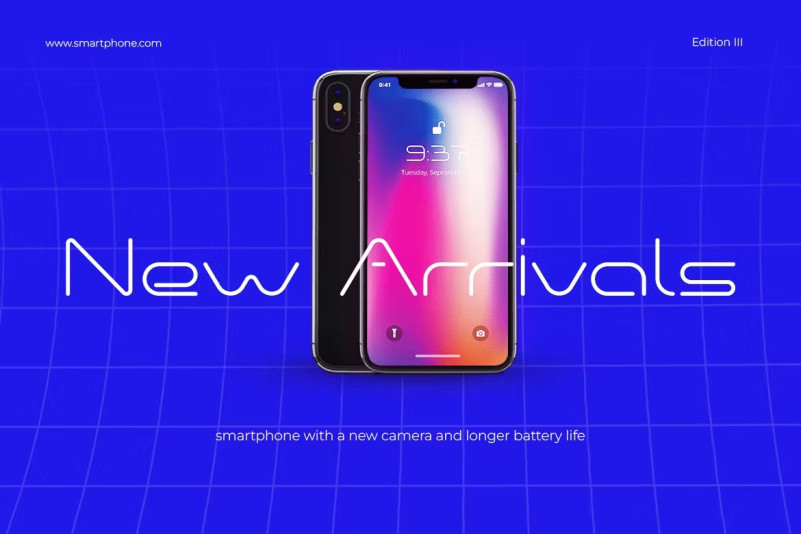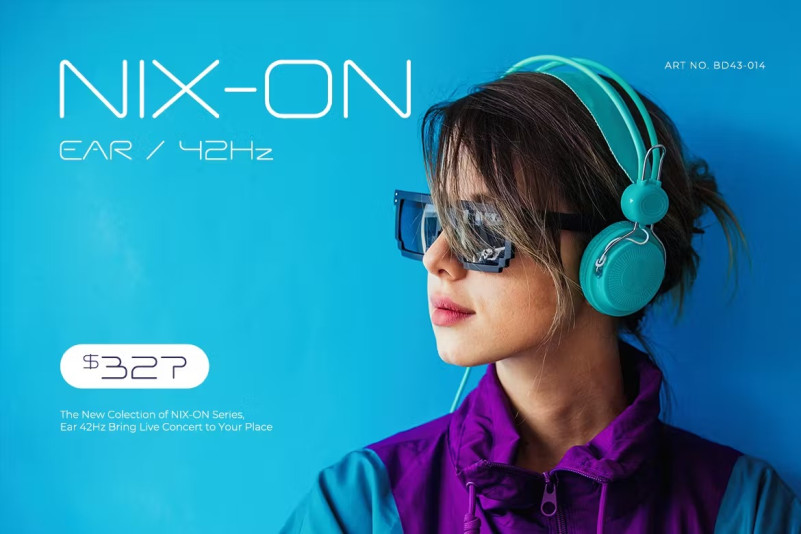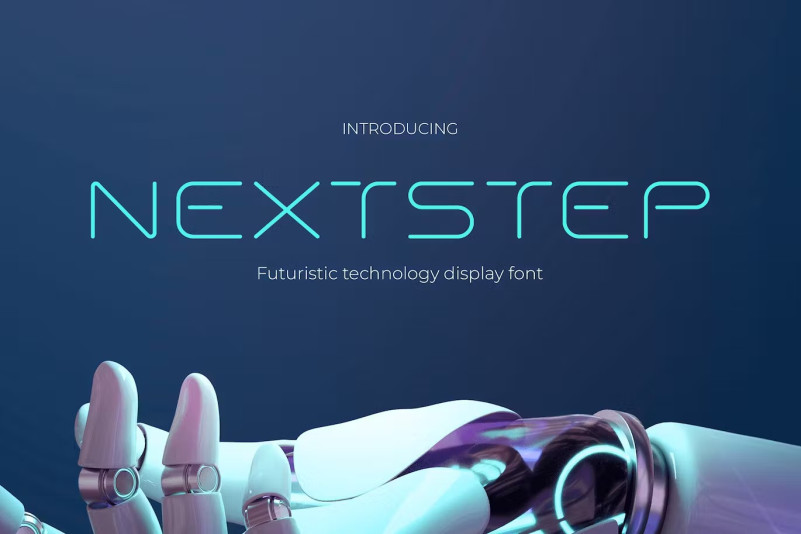
Nextstep Font
Nextstep Font, is the ideal font for those who want to transform their designs in the future. With its sleek and modern style, this techno-futuristic font is perfect for any project that conveys a sense of innovation, progress, and technology. Whether you’re creating a magazine cover, a poster for a tech event, or a website for a futuristic product, Nextstep will help you get your message across in the most effective way possible.
With its clean lines and bold design, Nextstep is also perfect for any sci-fi, space or video game related project. Its futuristic appearance makes it the perfect choice for creating digital interfaces, video game titles and other digital content that needs to convey a feeling of cutting-edge technology.
Nextstep is a font designed for the modern era. With a focus on technology, gadgets, and the metaverse, it’s the perfect choice for anyone looking to create sleek and innovative designs. So take the next step and try Nextstep today.